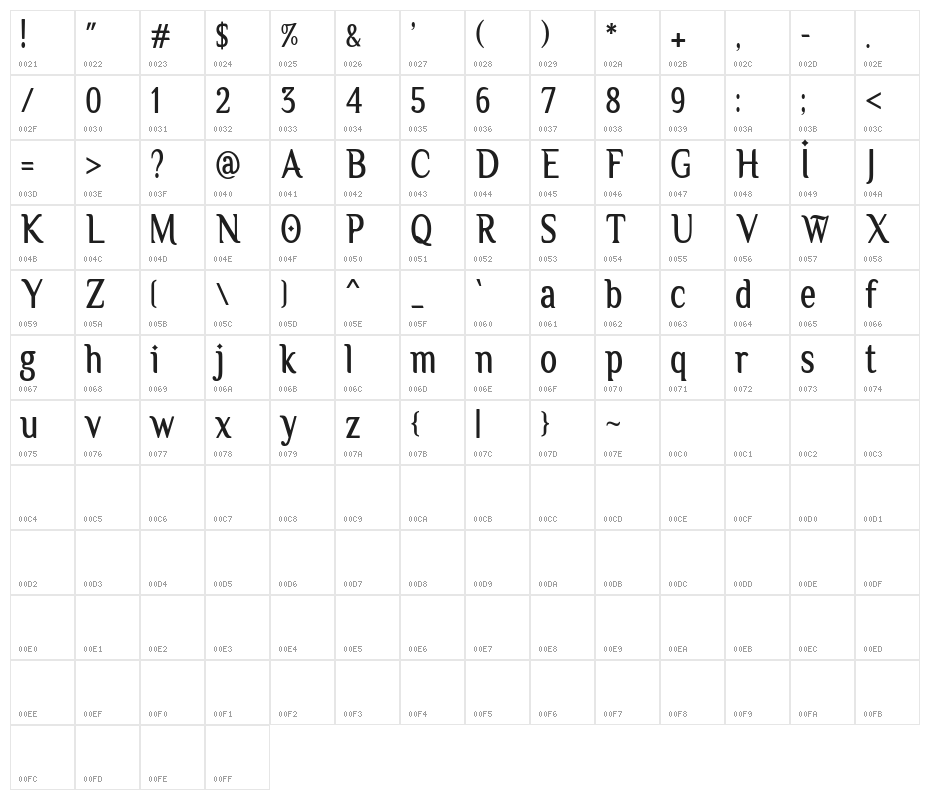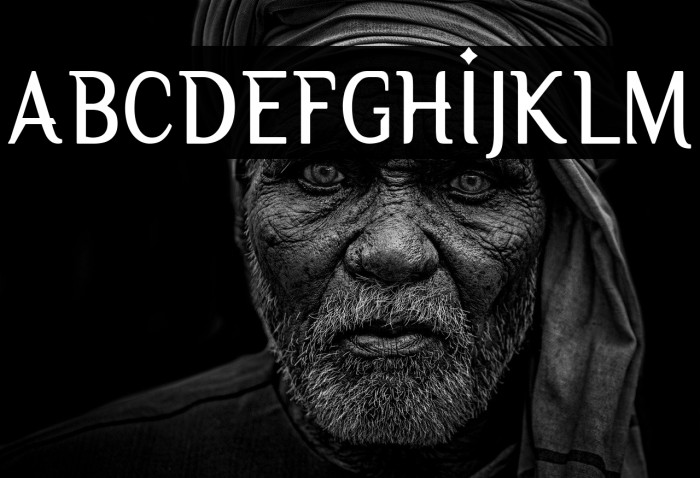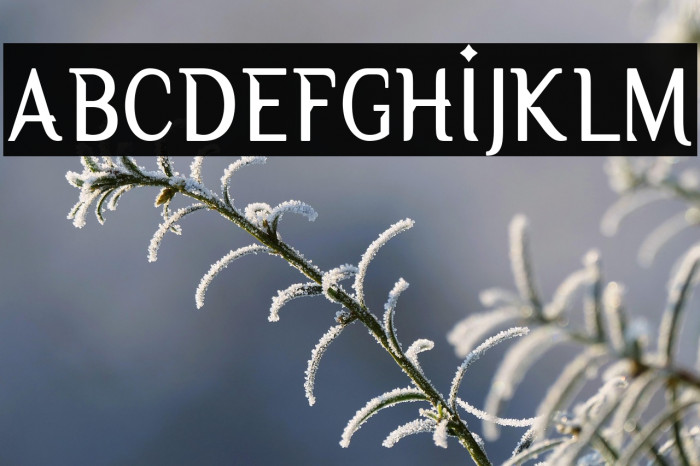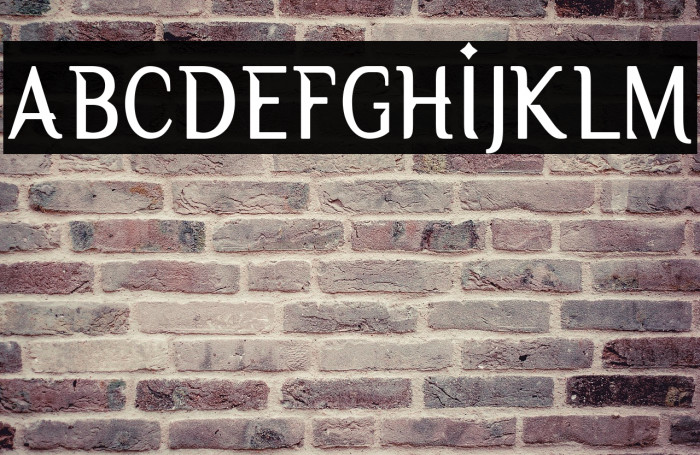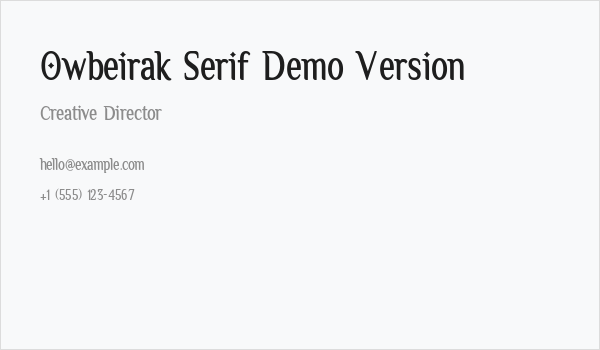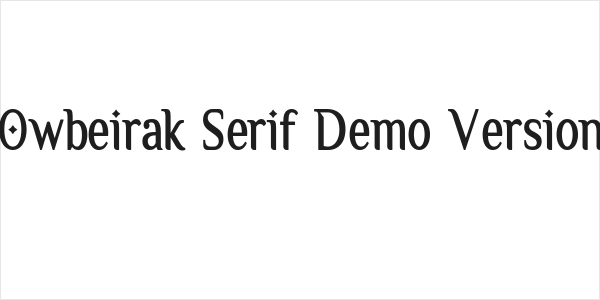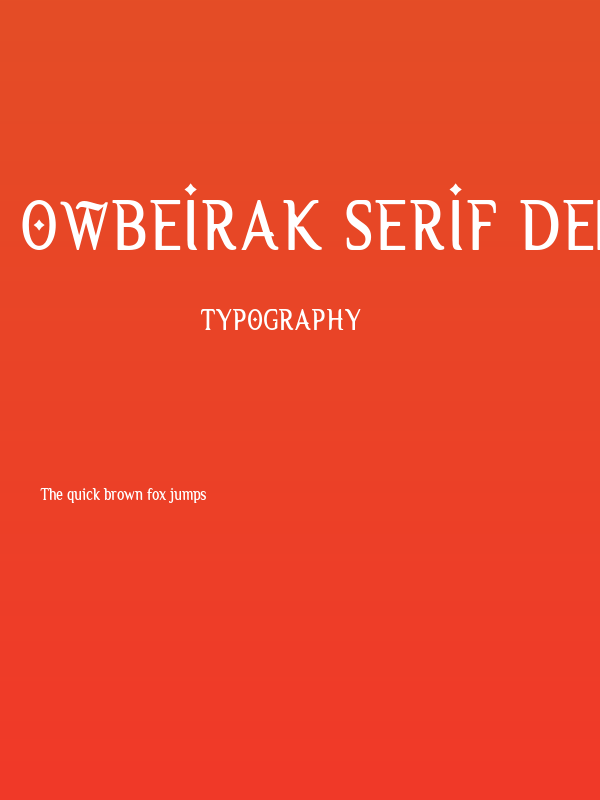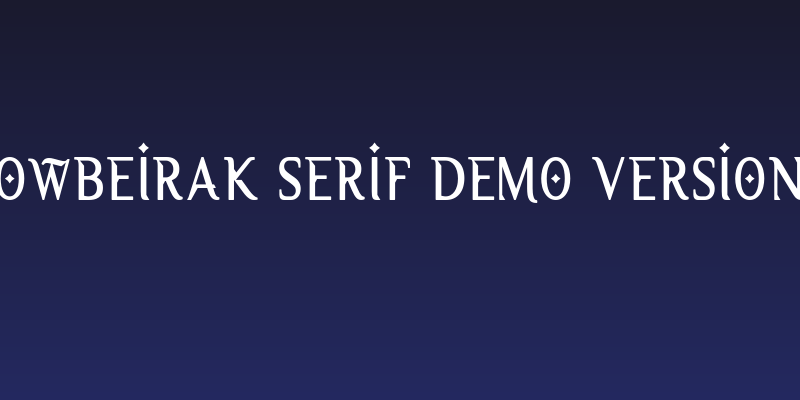
Owbeirak Serif Demo Version Font
Owbeirak Serif Demo Version Description
This font features a distinctive serif style with a blend of traditional and modern elements. The uppercase letters exhibit a classic serif design with slight curves and pointed edges, giving them a sophisticated appearance. The lowercase letters maintain a consistent style with rounded forms and subtle serifs, ensuring readability. Numbers are clear and well-proportioned, matching the overall aesthetic. Special characters are thoughtfully designed, integrating seamlessly with the rest of the font. The font's unique character is highlighted by its elegant serifs and balanced proportions, making it suitable for various design applications.
| Proposed Projects | Ideal for editorial design, book covers, branding projects, and elegant invitations. |